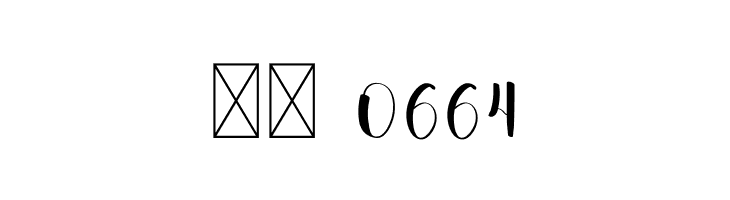
A playful, casual handwritten font with a school-like, dynamic feel.
A playful, hand-drawn font with a chalk-like texture and dynamic strokes.
A modern, rounded sans-serif font with a friendly and approachable style.
A bold, distressed font with a rugged, grunge aesthetic.
A bold, narrow font with tall characters and tight spacing, perfect for modern designs.
A playful, handwritten font with a modern and clean appearance.
A bold, playful font with a snow-capped, three-dimensional effect.
A playful, snow-themed font with bold, outlined characters.
A bold, textured font with a distressed, grunge aesthetic.
An ornate, decorative font with intricate detailing and a whimsical style.
A bold, distressed font with a unique halftone pattern for a rugged, dynamic look.
A futuristic, geometric font with clean lines and rounded edges.
A whimsical, decorative font with intricate spirals and curls.
A playful, decorative font with floral and springtime motifs.
A bold, distressed stencil font with a vintage, industrial feel.
A bold, stencil-style font with geometric shapes and clear cutouts.
A bold, grunge-style decorative font with a vintage, distressed look.
A bold, decorative font with a grunge texture and vintage appeal.
A bold, slanted font with angular, futuristic characters.
A futuristic, slanted font with bold, condensed characters and medium contrast.
A bold, distressed font with a rugged, vintage appearance.
A flowing, cursive font with interconnected characters and a handwritten style.
A bold, textured font with a rock-like appearance.
A bold, decorative font with a stitched, patchwork design.
A bold, distressed font with a rugged, grunge aesthetic.
A decorative font with intricate, vine-like designs on each character.
A bold, festive font with winter hats on each character, perfect for holiday themes.
A decorative and intricate font with characters formed by intertwining shapes.
A bold, outlined font with a strong, three-dimensional appearance.
A bold, textured font with an urban, graffiti-inspired style.
A bold, decorative font with a camouflage pattern, perfect for military-themed designs.